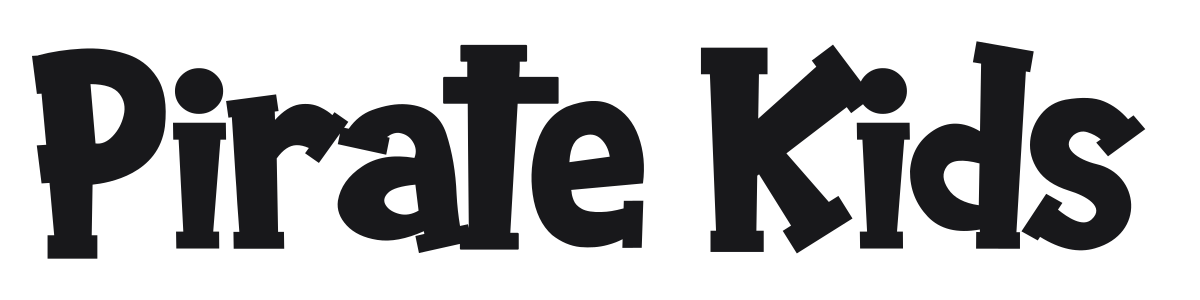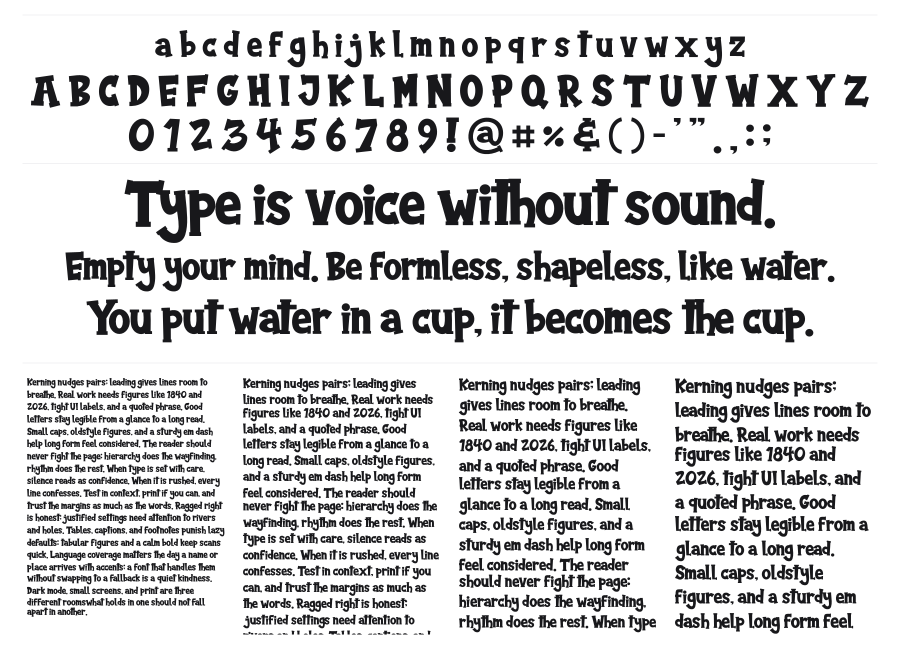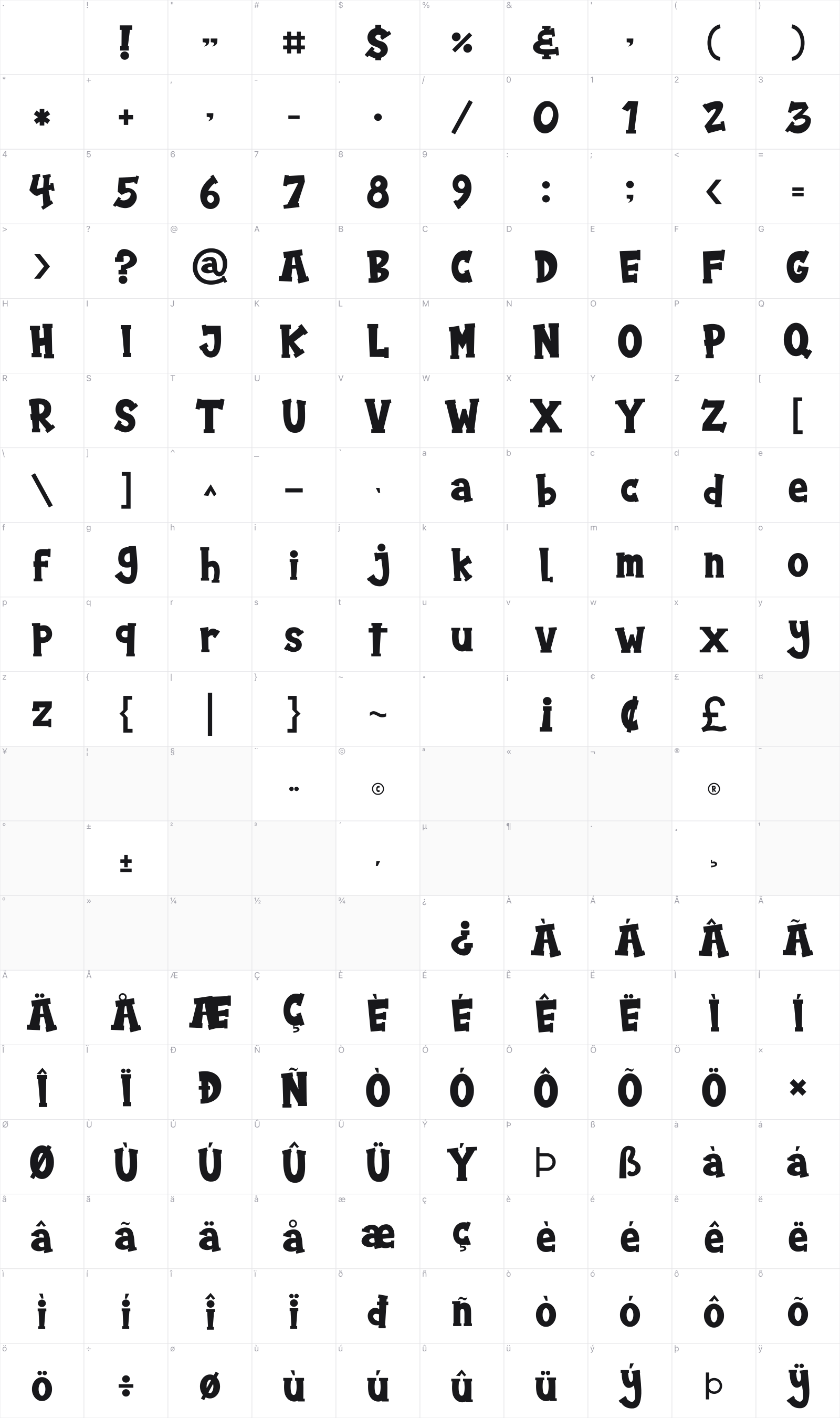
Pirate Kids
Pirate Kids is a heavy display serif with chunky bracketed serifs and a cartoon-comic character that reads as pure adventure. The bold weight and playful irregularities make it feel hand-lettered, like a title card from an animated kids' show. It works best large, where the dramatic serifs and ink-trap details really come alive.